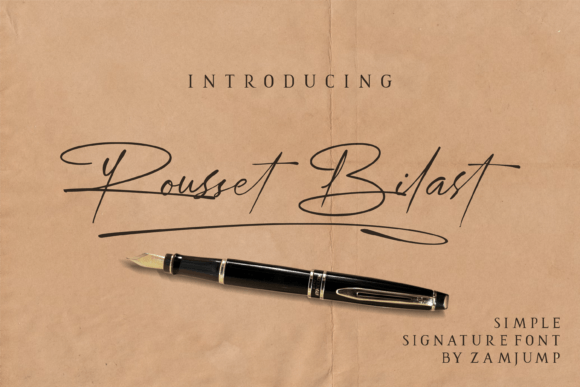
Journey into the realm of elegance and sophistication with Rousset Bilast, a captivating script font family that echoes the allure of handwritten signatures. This extraordinary creation by zamjump is a testament to the art of calligraphy, meticulously crafted to infuse your designs with a touch of personal charm.
Unleash your creativity and let Rousset Bilast dance across your projects, transforming them into masterpieces of visual delight. Picture your wedding invitations adorned with the graceful strokes of Rousset Bilast, each letter flowing into the next with an air of effortless beauty. Envision your branding materials exuding a touch of timeless elegance, leaving an indelible impression on your clients.
Rousset Bilast isn't just a font; it's an experience that invites you to connect with your audience on a deeper level. Its carefully designed heart connectors, handwritten ligatures, and end swashes for lowercase letters create a sense of authenticity that resonates with viewers. Whether you're crafting logos, website designs, or social media posts, Rousset Bilast adds a layer of sophistication that sets your work apart.
Step into the world of Rousset Bilast and let its enchanting allure captivate your senses. Embrace the art of handwritten signatures and elevate your designs to new heights of beauty and distinction. Experience the magic of Rousset Bilast today and embark on a creative journey that will leave you breathless.